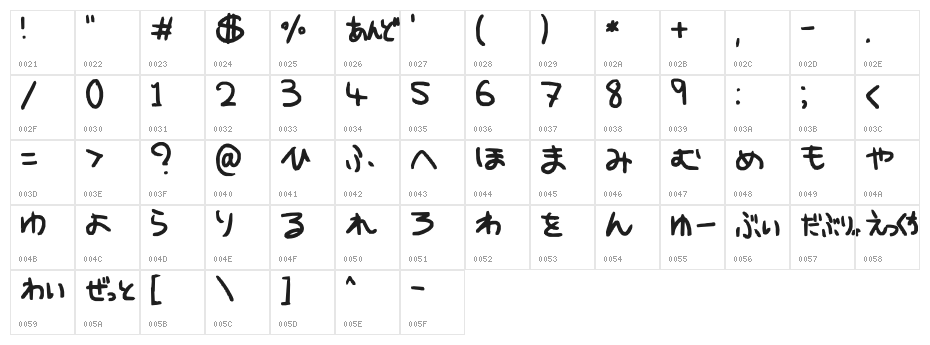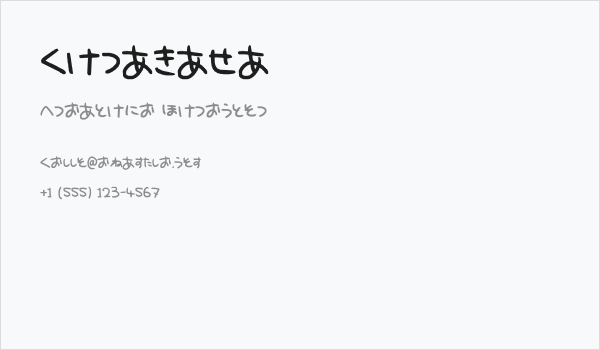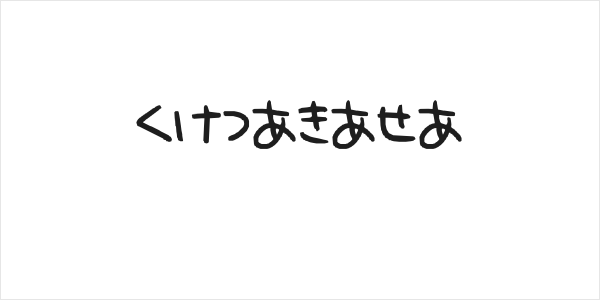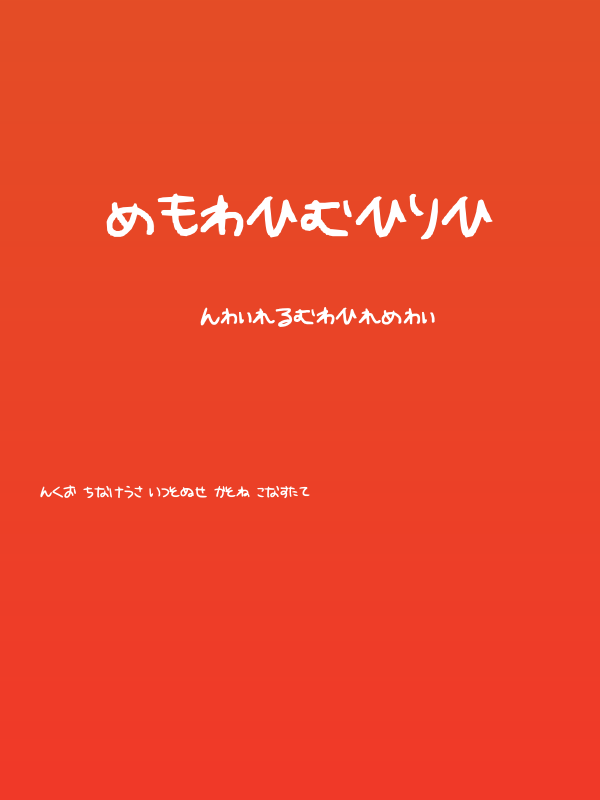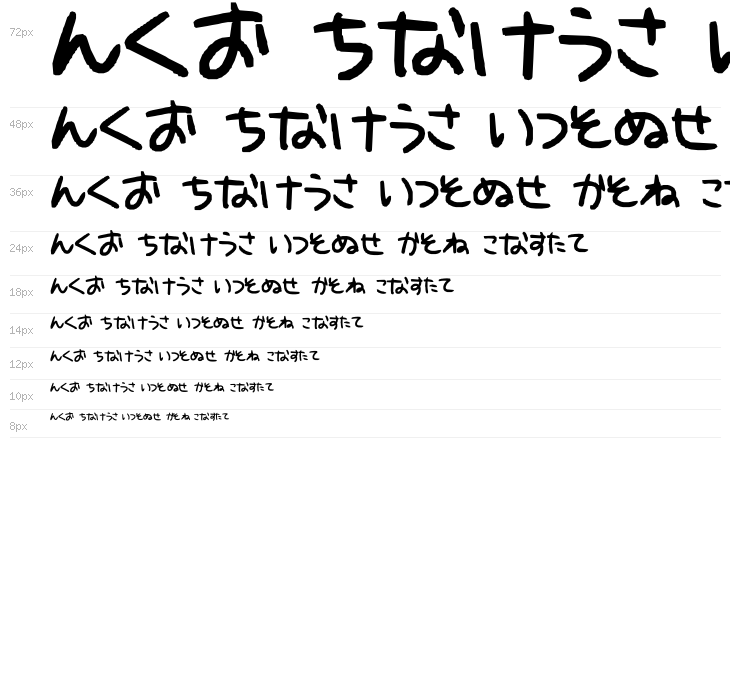
hiragana Font
hiragana Description
This font features a playful and casual handwritten style, characterized by its smooth, rounded strokes and a slightly uneven baseline that gives it a natural, organic feel. The characters are bold and clear, making them easily readable while maintaining a whimsical charm. The font includes a full set of numbers and a variety of special characters, enhancing its versatility. Its informal and friendly appearance makes it suitable for creative projects that require a personal touch.